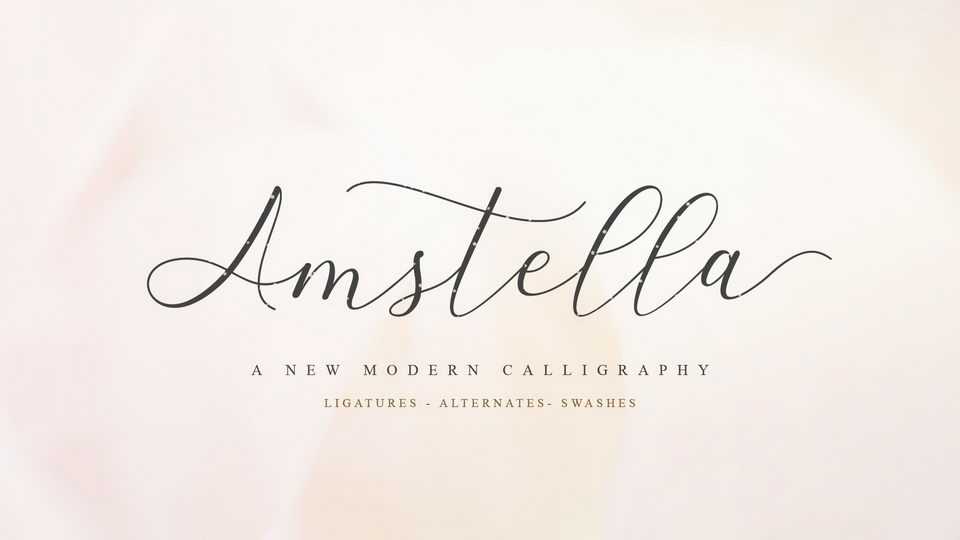
Download Amstella font, a modern script with various features, designed with a touch of luxury and elegance and created just for you. Amstella is very perfect for creating modern designs like wedding designs, cards, ads, sales, logos, branding, posters, social media, and text overlays.